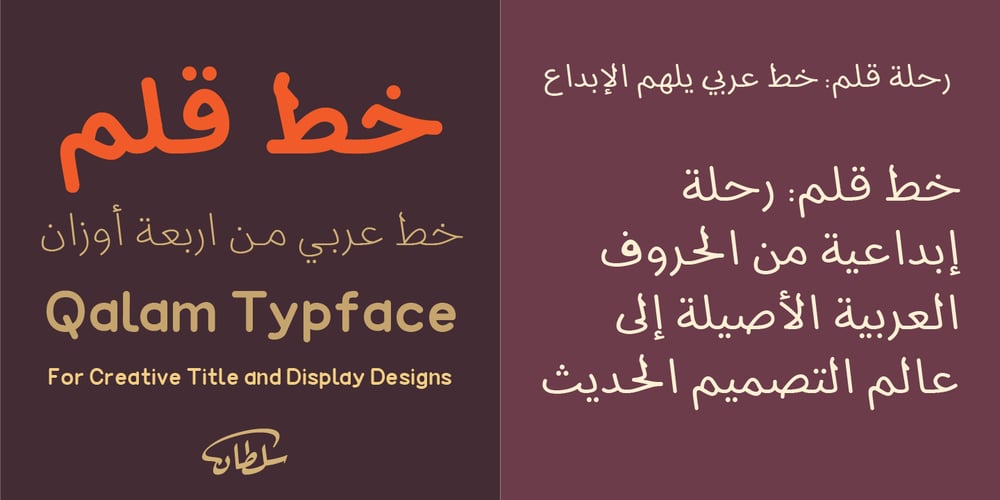
SF Qalam Font Family was designed by Sultan Maqtari and published by Sultan Fonts. SF Qalam contains 4 styles and family package options. Qalam Typeface”Qalam” is a regular-weight handwriting font in all its letters with a modern and distinctive Naskh script consisting of four weights: Regular, Medium, Bold, and Black. This font adds a touch of vitality to any creative project, whether printed or digital.”Qalam” font is characterized by its simplicity and elegance, while maintaining readability and clarity.The four different weights allow you to diversify the font’s uses, from eye-catching headlines to easy-to-read body text, to distinctive quotes and creative designs.In the “Qalam” font, we have provided many beautiful alternatives for extending letters to add a touch of creativity to: Print: Books, magazines, posters, and banners Digital Designs: Websites, applications, and social media Packaging: Product packaging and branding Marketing: Advertising materials and promotions With the “Qalam” font, the creative possibilities are endless!Try the “Qalam” font today and take your creativity to new heights!